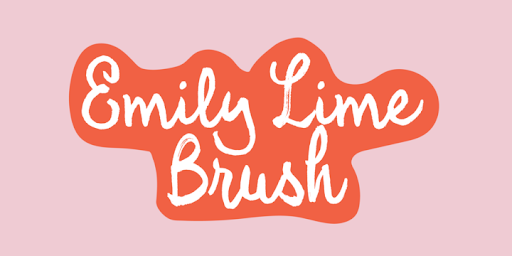
Download Emily Lime Brush Font Family From Emily Lime    This brush script is what you call real.  Designed using a pentel brush pen on paper, it captures all the nuances of real lettering. Texturized streaks are inconsistent, just as you would expect in real life.   This font has tons of personality but it doesn't yell at you like many brush scripts can.  Emily Lime Brush is an easy choice that can cover many design projects.  Designed to be straight-forward & easy to use. Multilingual support.       Download Emily Lime Brush Font Family From Emily Lime   Download Now   View Gallery